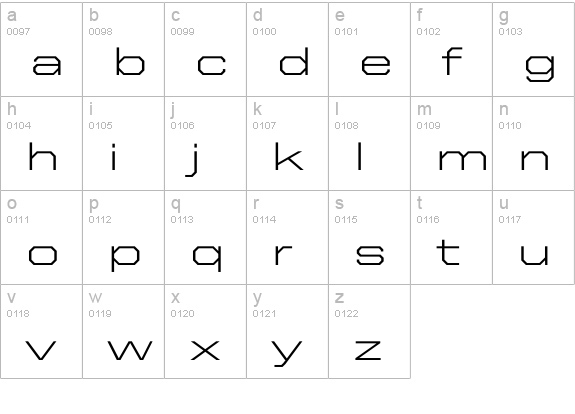
United Sans Ext Light Font Details
United Sans Ext Light is a refined, elegant variant in the United typeface family \xE2\x80\x94 well suited to elegant body text, refined sub-headings, and luxury branding.
United Sans Ext Light is a beautifully crafted font that effortlessly combines elegance and simplicity. With its clean lines and refined letterforms, this typeface exudes a sense of modern sophistication. Its light weight adds a touch of delicacy, making it perfect for projects that require a subtle touch. This font is not only visually stunning, but it also offers great versatility. Whether you're designing a logo, creating a website, or crafting a professional document, United Sans Ext Light will elevate your work to new heights. It is the ideal choice for those looking to make a lasting impression with their typography. One of the best things about United Sans Ext Light is that it is freely available to download at FontsMarket.com. This means that you can instantly add this incredible font to your design arsenal without breaking the bank. With just a few clicks, you can access a world of endless creative possibilities. So why wait? Enhance your designs with the timeless beauty of United Sans Ext Light. Download it for free at FontsMarket.com and let your creativity soar.